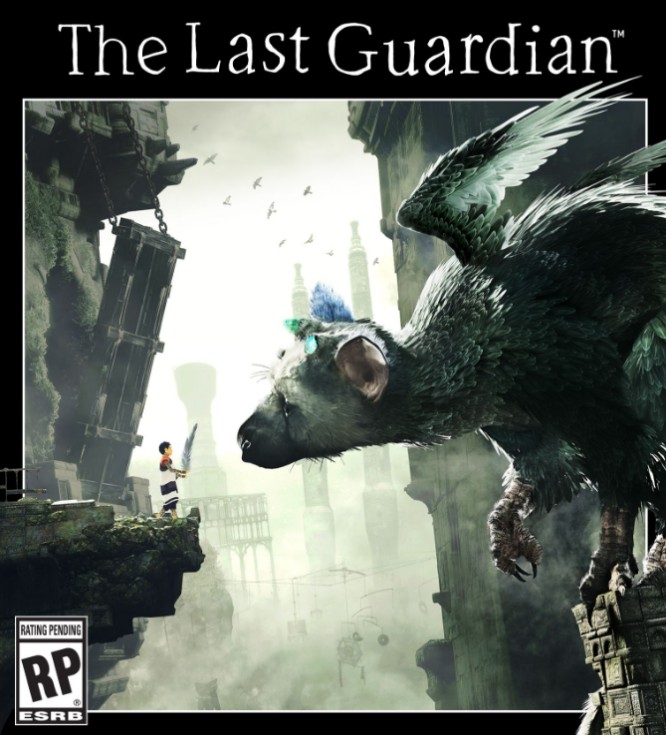
The Last Guardian Font
ActionThe Last Guardian is a 2016 action-adventure game developed by Japan Studio and GenDesign and published by Sony Interactive Entertainment for the PlayStation 4. The game features a boy who befriends a giant half-bird, half-mammal creature, Trico to overcome various obstacles and enemies, and must solve puzzles to progress.
The font used for The Last Guardian game logo on the box art is Godlike, a handwritten serif font designed by Peter Bruhn. The logo had been altered somewhat with more heavily weighted stroke, more condensed letter form, and altered letters “d”, and “i”.